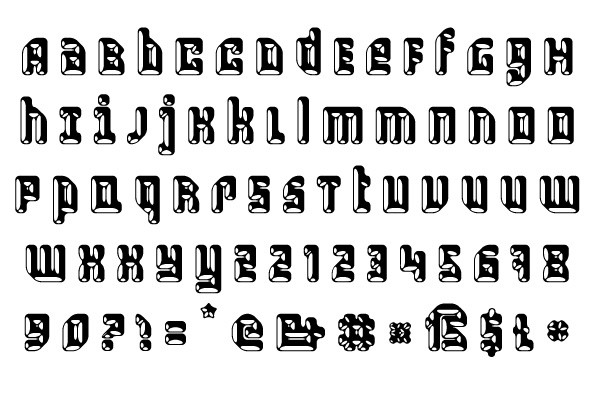
FR Smaragdina
FR Smaragdina is a highly decorative font family for titles. Family members shares the very same metrics/kerning so these can layered on top of each other. Experiment for highly decorative, eye-catching results. FR Smaragdina support many languages, and Cyrillic as well. Arrows and banners included in font can come handy also.